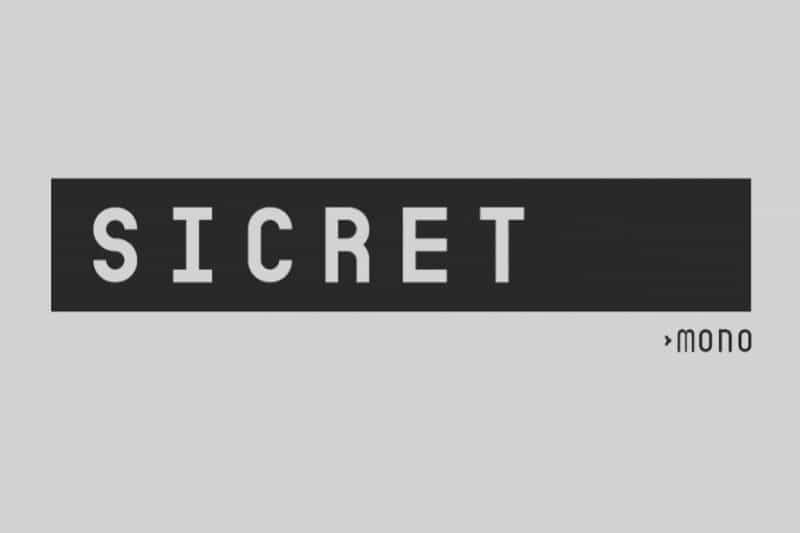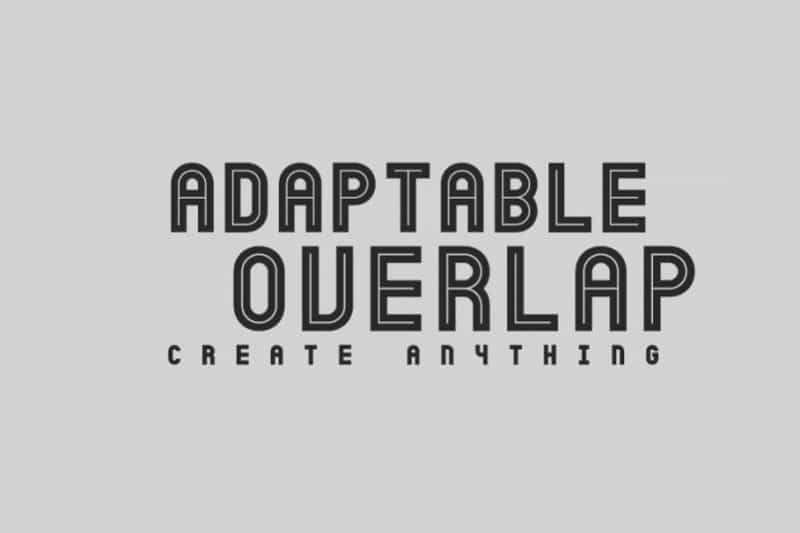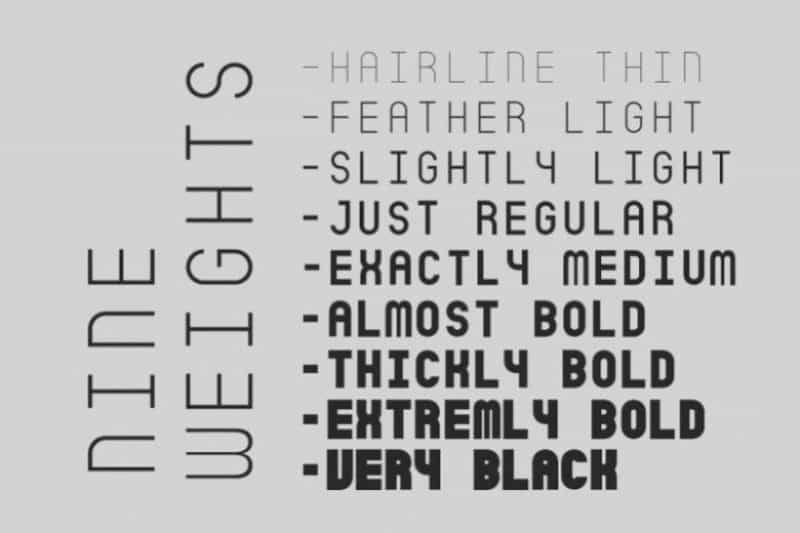
Sicret Mono is a monospaced font with geometric appearance created by Måns Grebäck in 2020. Analyzing the construction of the square symbols from which the font was derived, it can be noted that there are two basic shapes. The four designs were created side by side in four different versions following the principles of symmetry and balance. Sicret Mono is a font with a serious, and at the same time, quite strict look but still can be characterized as stylish. The reason that is at once appealing and technology-sci-fi is because it is based on this digital kind of world mate.